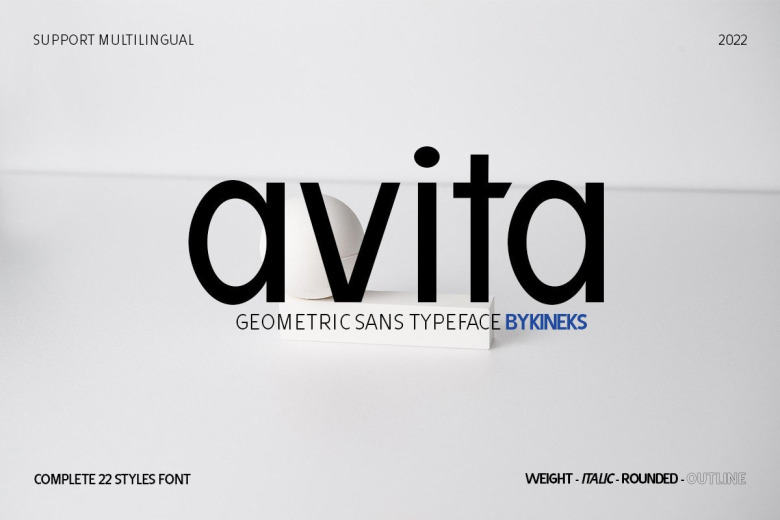
Avita Font
Avita is a neat and casual sans serif font. No matter the topic, thanks to it, your fonts’ library will compete with creations that are already on the market or are waiting to be released, and you will be able to use it to your liking.
Avita Sans Serif Font Family